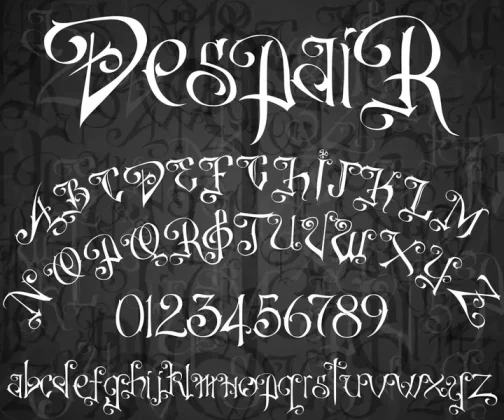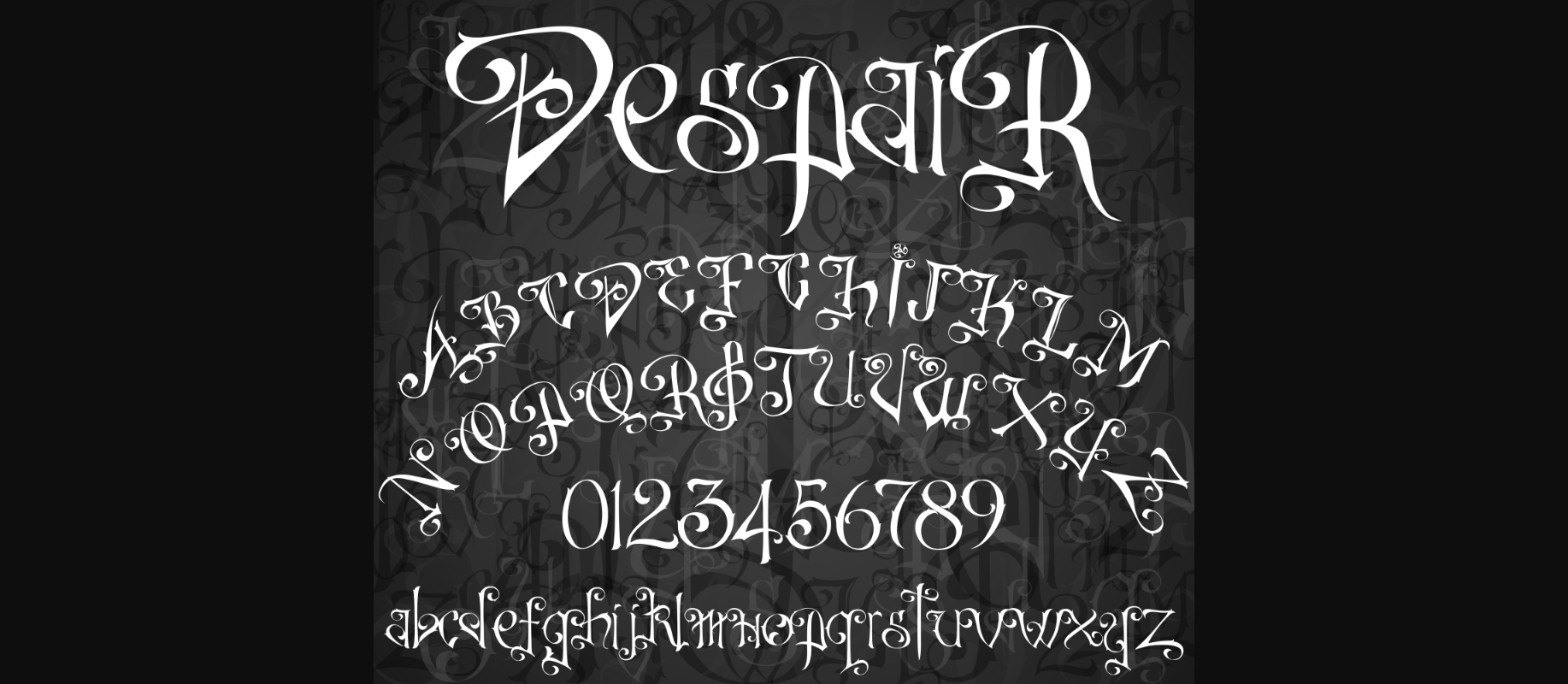
DespaiR Font
About DespaiR Font
“DespaiR is my second font which started from the word “despair”, scribbled on a piece of paper during an extended phone call. I liked the combination between gothic and calligraphic so I decided to carry on designing a whole set of basic characters and more.”